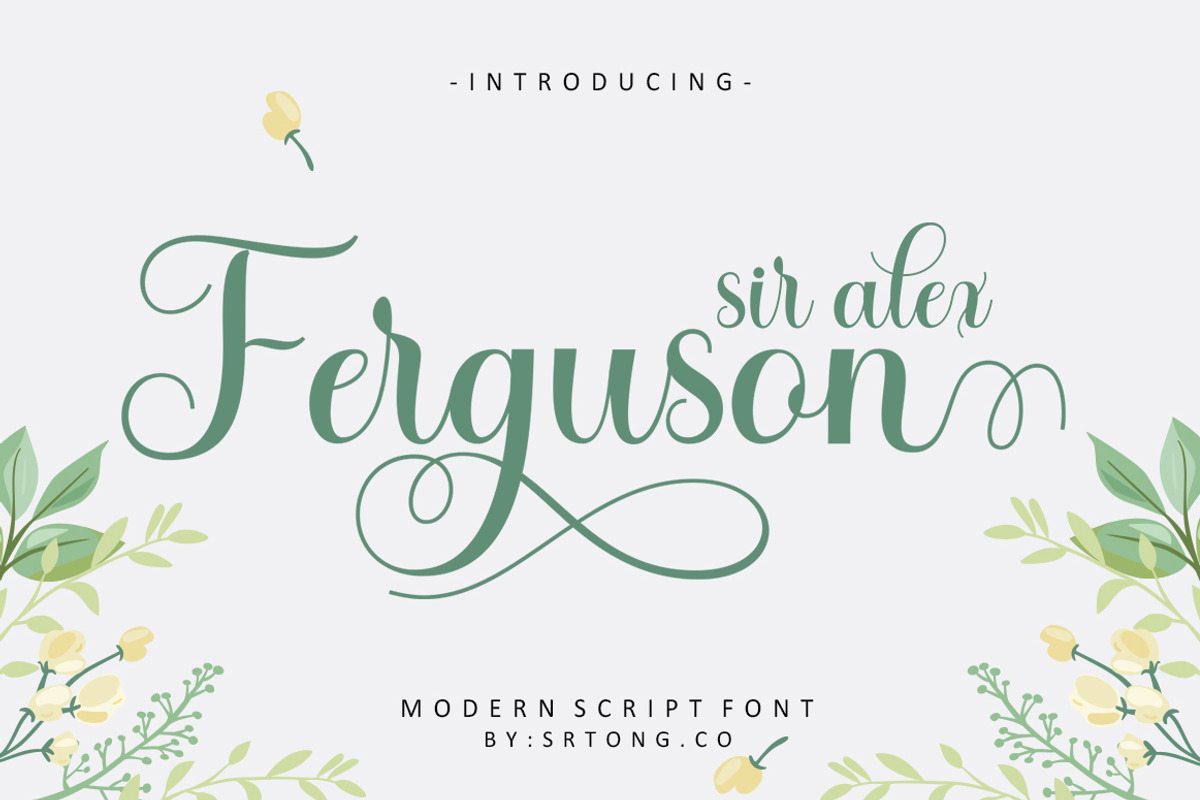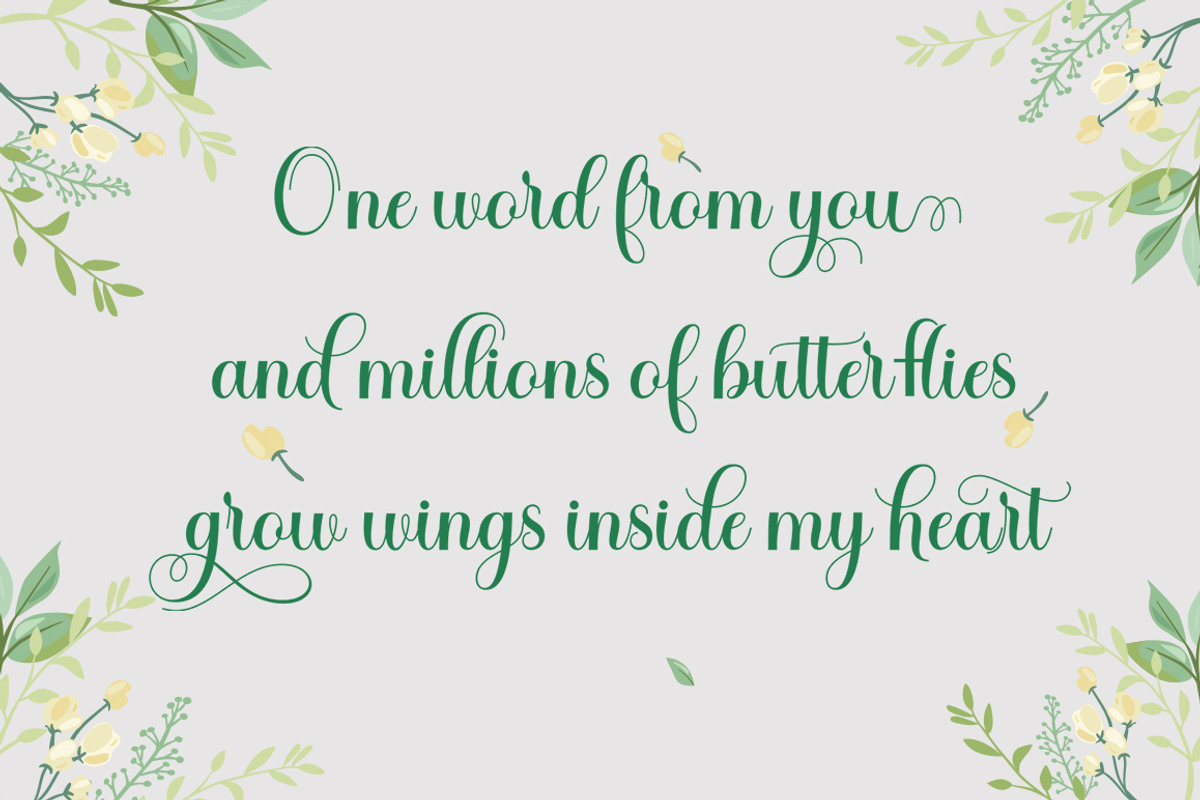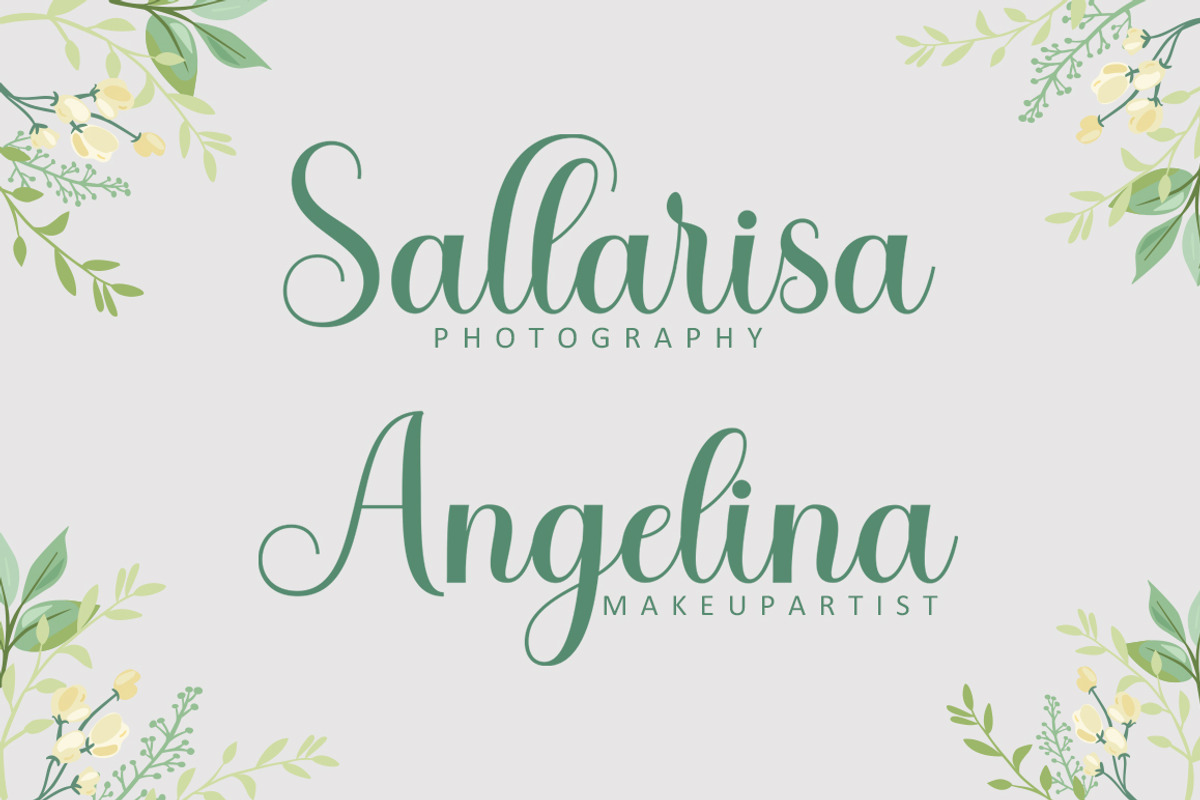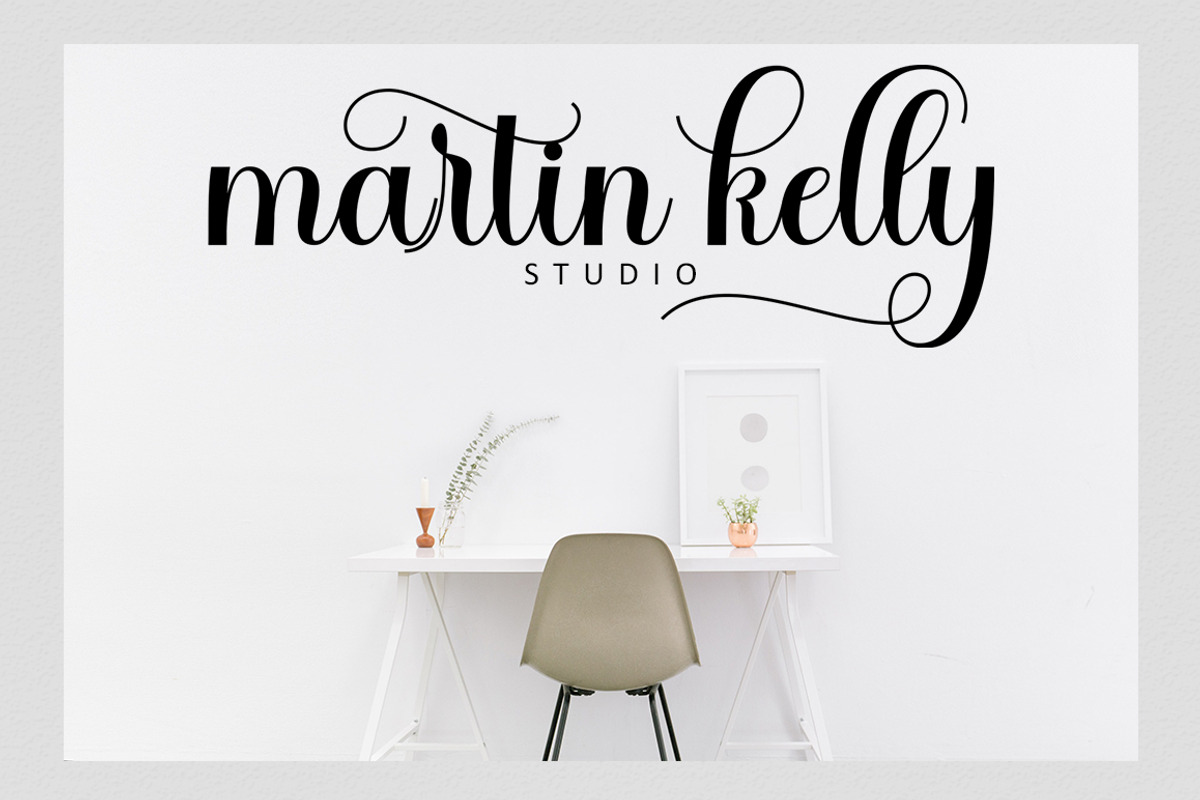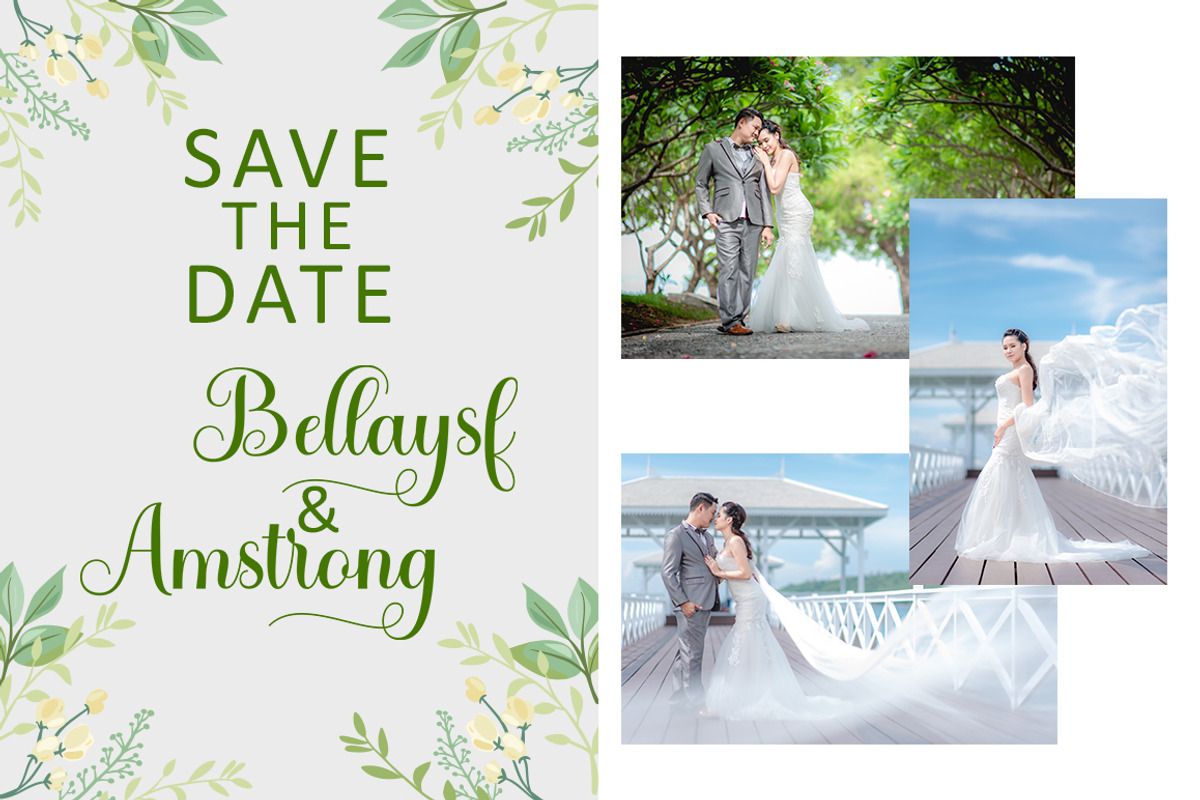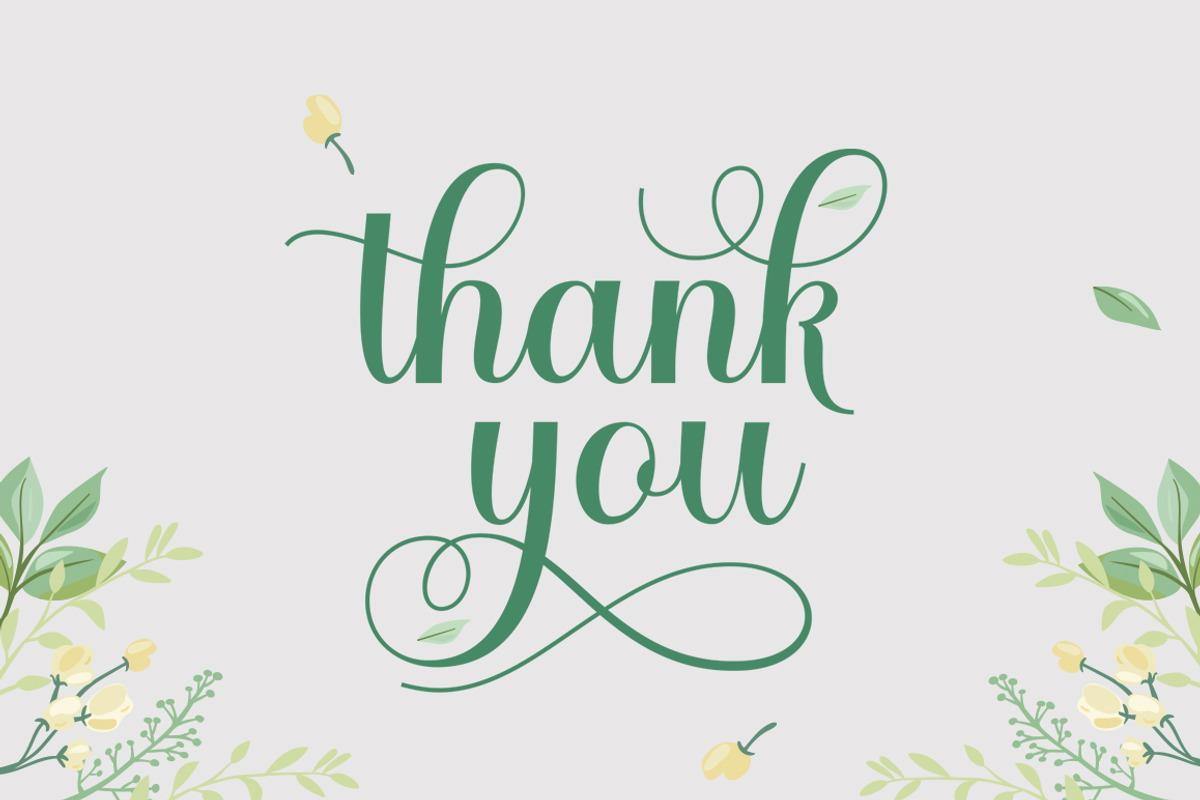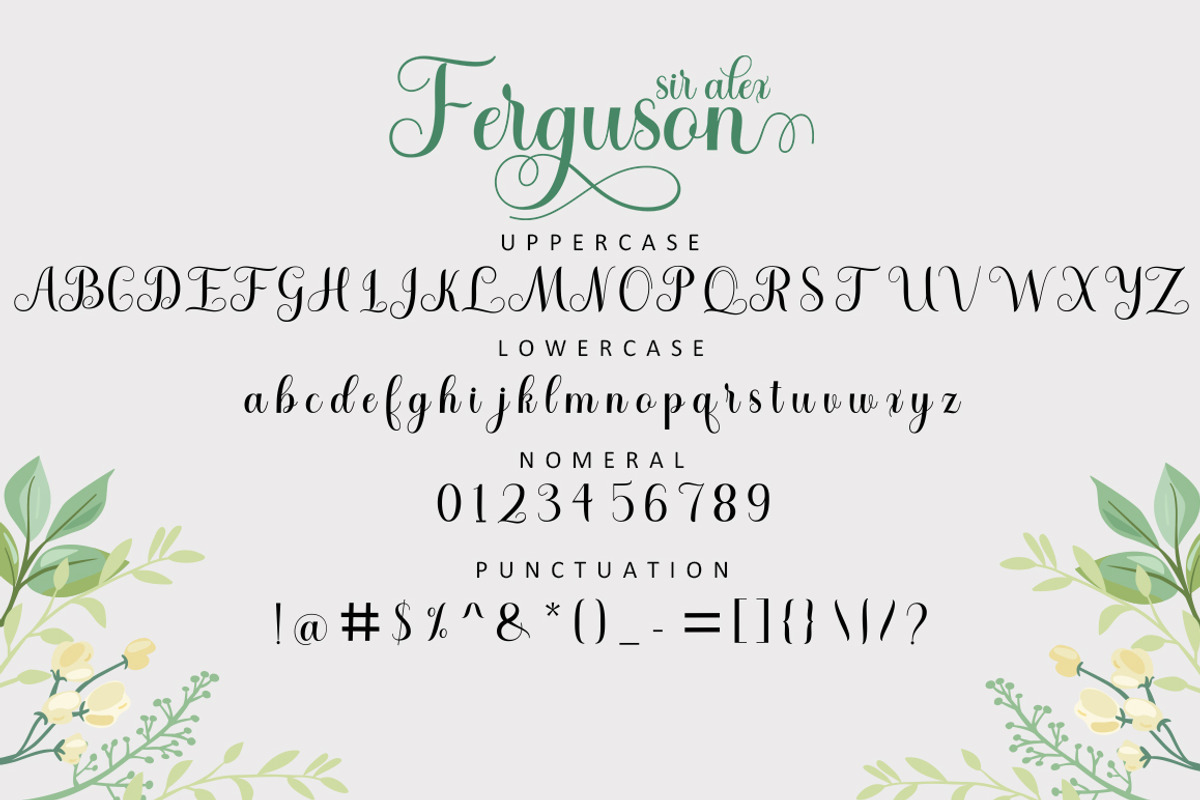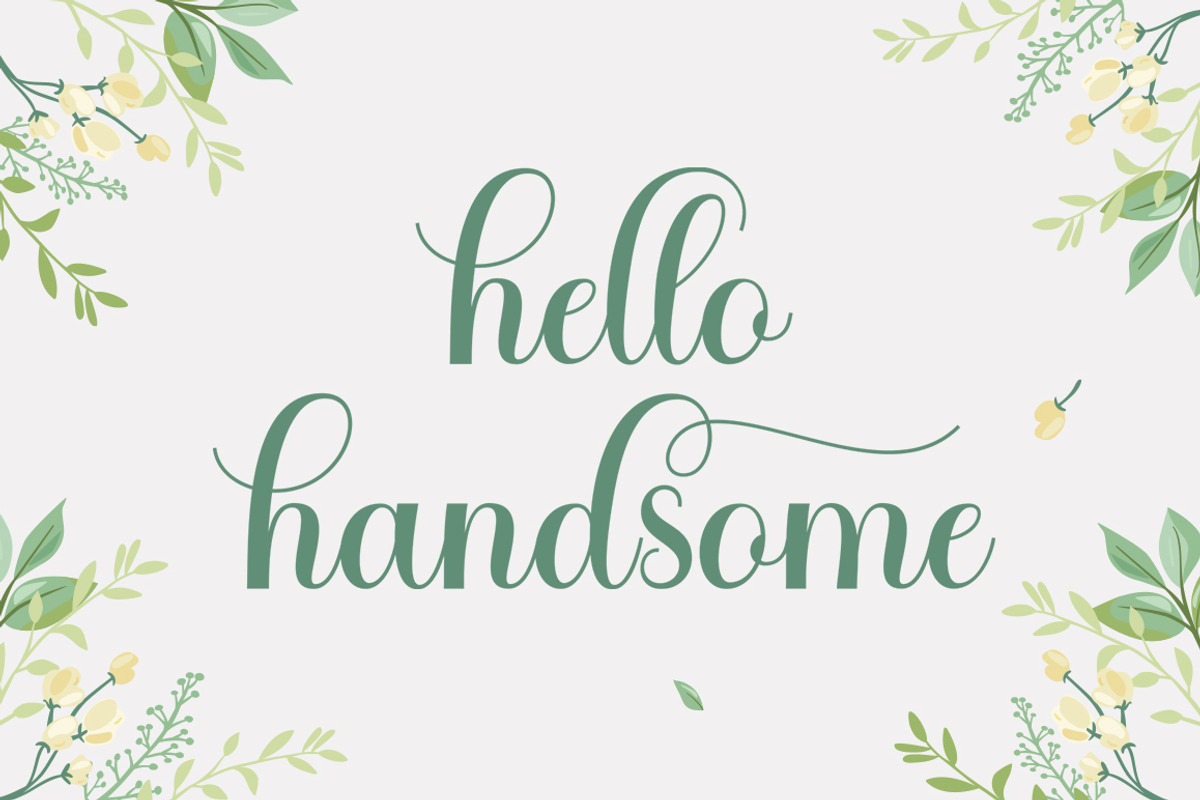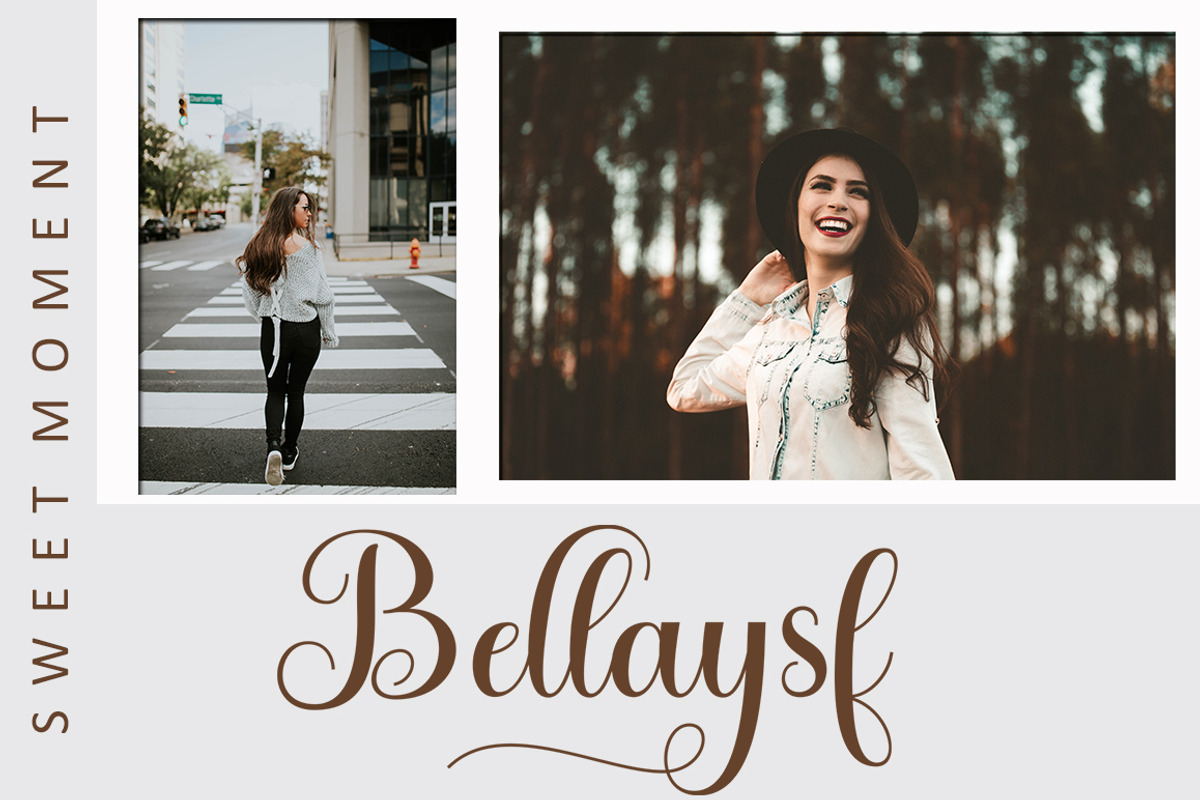
sir alex Ferguson
sir alex Ferguson elegant Calligraphy font is a sweet and romantic calligraphy typeface with characters dancing along basic lines. It has a casual yet elegant touch. It can be used for various purposes such as logos, wedding invitations, titles, t-shirts, letterheads, name boards, labels, news, posters, badges etc.
The font includes OpenType features with alternative styles, ligatures, and multiple language support.